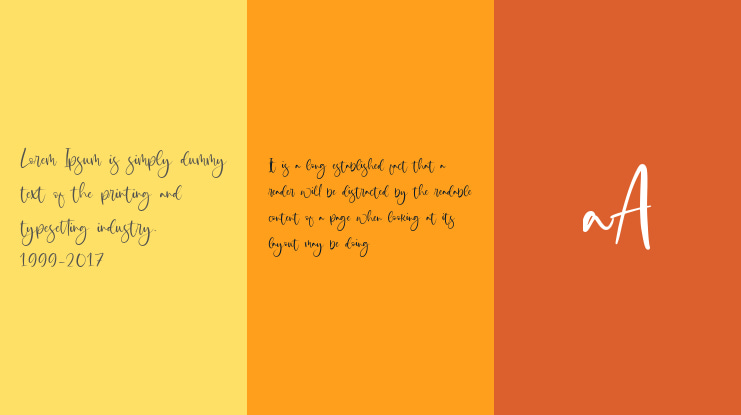
Wicked Dream Font
Letterative Studio
Introducing by Letterative Studio : Wicked Dream Font
Wicked Dream is a Modern Handwritten Script Font
Wicked Dream is perfect for product packaging, branding project, megazine, social media, wedding, or just used to express words above the background.
Wicked Dream font preview